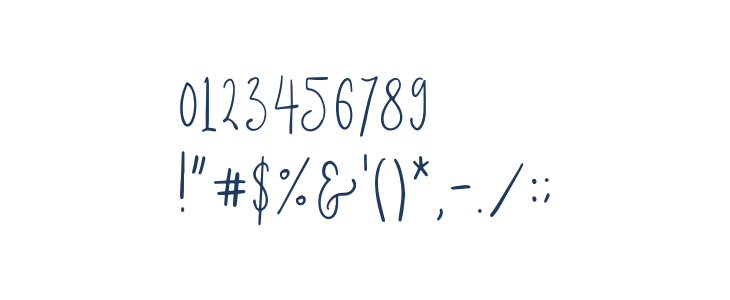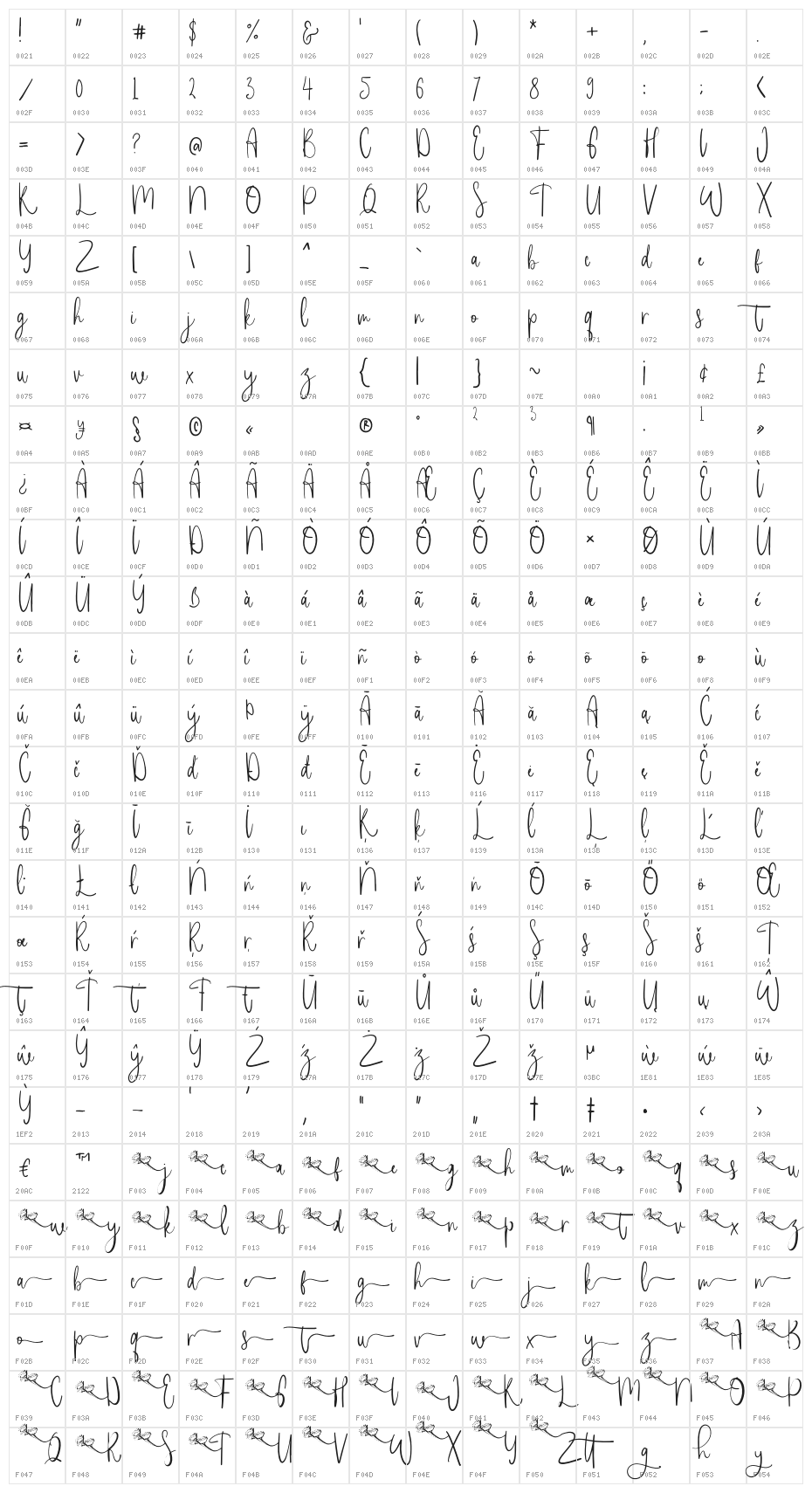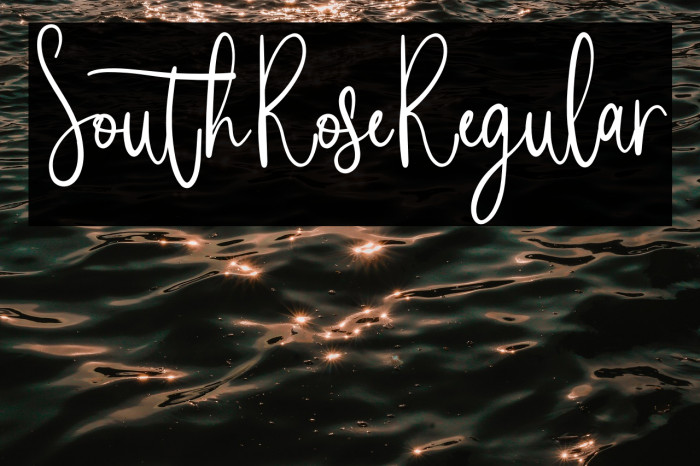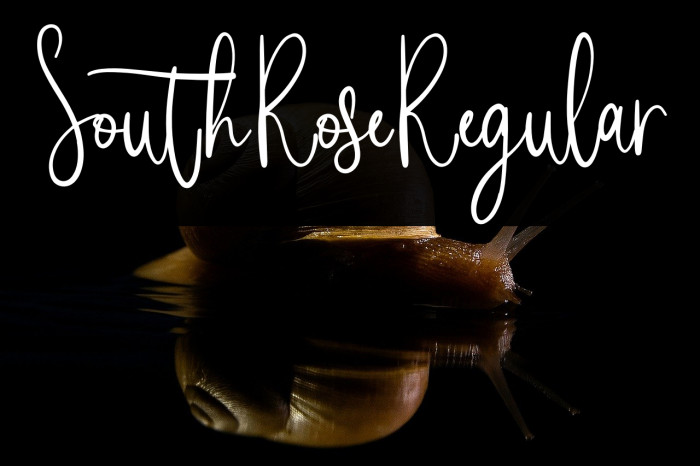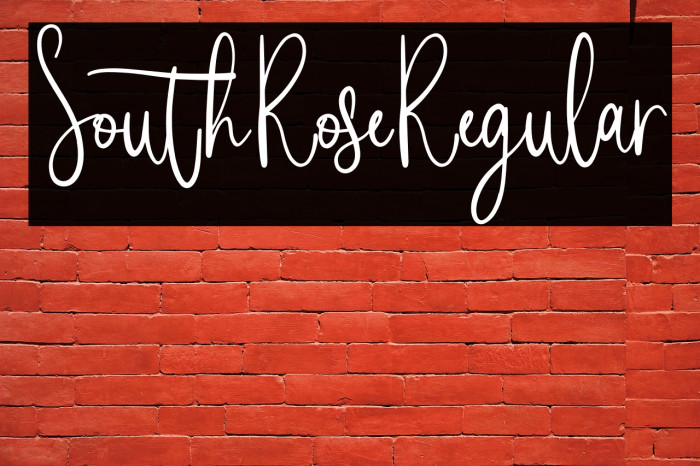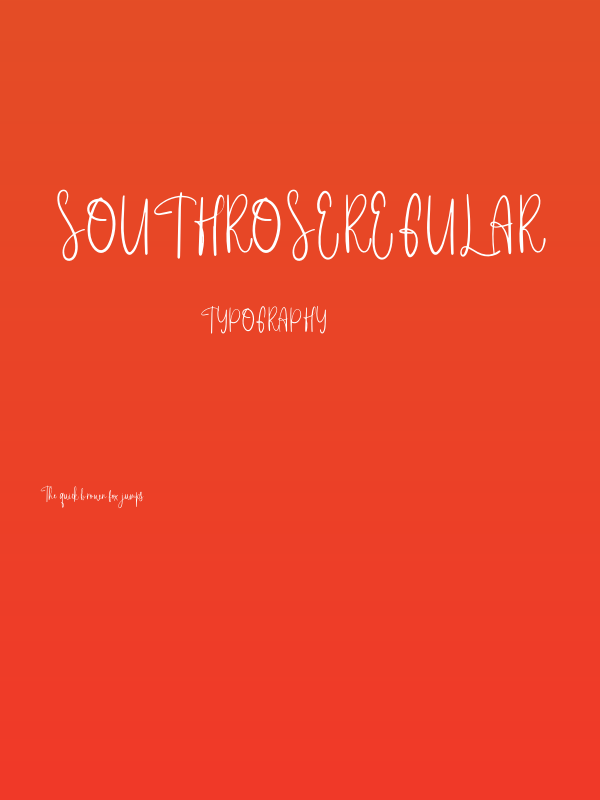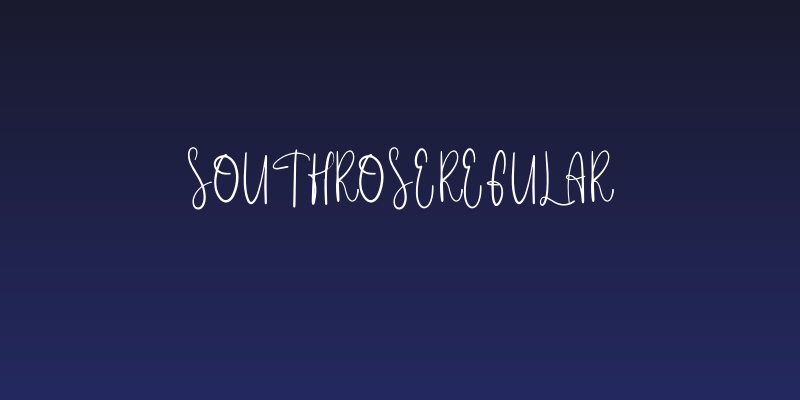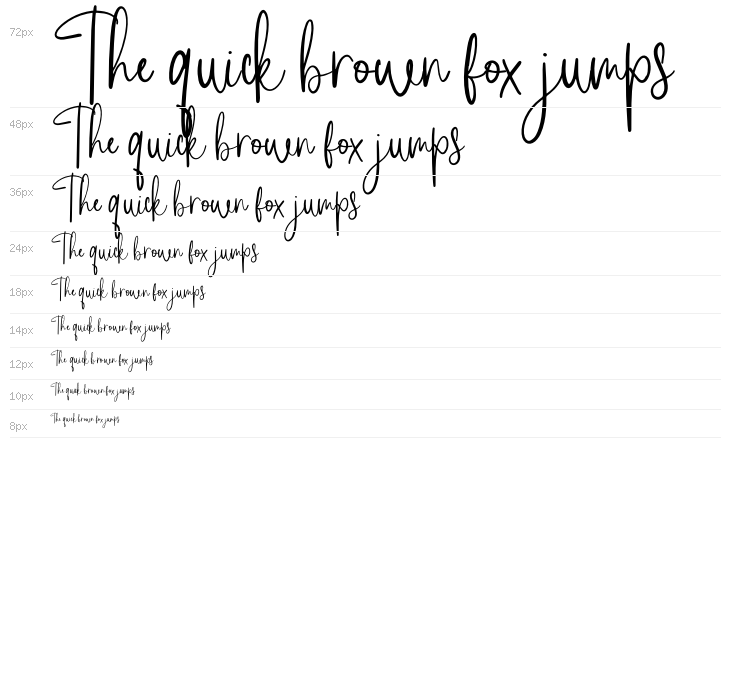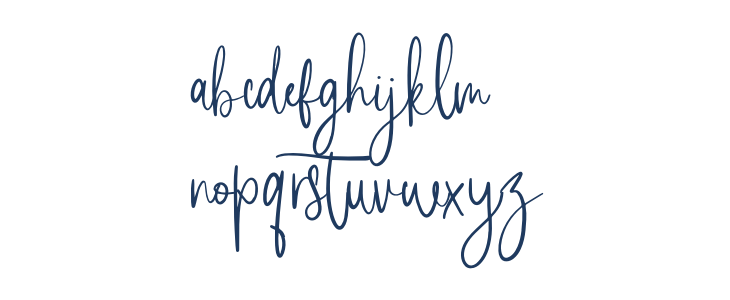
SouthRoseRegular Font
SouthRoseRegular Description
This font features a playful and casual handwritten style, characterized by its flowing and slightly irregular strokes. The uppercase letters are tall and slender, with a whimsical touch that adds personality to each character. The lowercase letters maintain a consistent flow, enhancing the font's informal and approachable feel. Numbers and special characters are designed to match the overall aesthetic, ensuring a cohesive look across all text elements. The font's unique charm makes it ideal for creative projects that require a personal touch.
| Overall Style | Casual and Playful |
| Use Case | Logos, Invitations, Social Media Graphics |
| Proposed Projects | Ideal for greeting cards, invitations, personal branding, and social media graphics. |